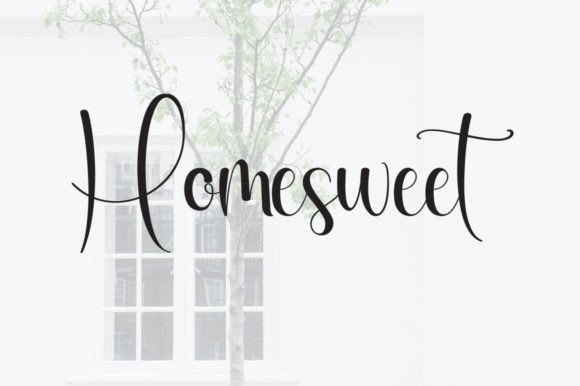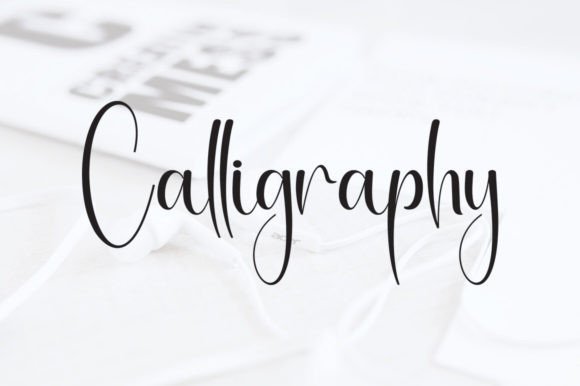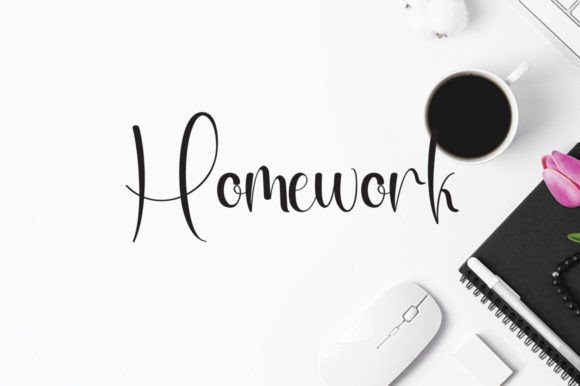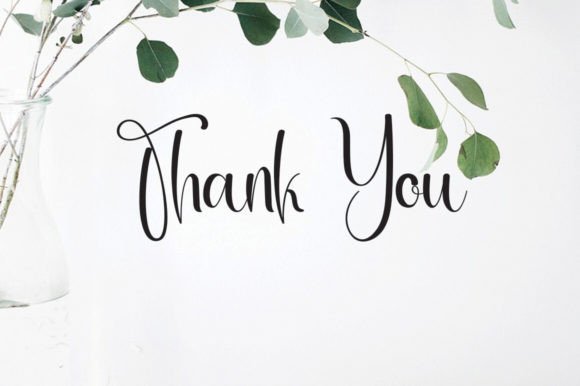
The Sweet Charm of Autography Font: A Designer’s Delight
I’ll never forget the time I was working on a project for a client who wanted a custom wedding invitation design. I had the perfect concept in mind, but I was struggling to find the right font to bring it all together. That’s when I stumbled upon Autography Font, and it was love at first sight! ✨ This delightfully sweet and whimsically cursive handwritten font has since become a staple in my design toolkit, and I’m excited to share its charm with you.
An Honest Review of Autography Font
- ✨ The tender charm and poetic elegance that Autography brings to any design project
- ✅ The subtle yet effective way it infuses an air of joy and romance into every design
- 💫 The versatility of this font, which makes it suitable for a wide range of projects, from wedding invitations to branding and packaging
- 🎨 The beautiful, handwritten feel that adds a touch of personality to any design
While Autography Font is a stunning addition to any design project, there are a few things to keep in mind: ⚠️
- 🤔 Some users may find that the font can be a bit tricky to read in smaller sizes, so it’s best to use it in larger sizes or for display purposes.
- ⚠️ As with any script font, it’s essential to pay attention to kerning and letter spacing to ensure that the text looks elegant and refined.
A Practical Guide to Using Autography Font
The Backstory of Autography Font
Autography Font was designed by a talented type designer who wanted to create a font that would bring a touch of elegance and sophistication to any design project. The designer drew inspiration from classic script fonts and infused them with a modern, playful twist. The result is a font that is both elegant and refined, yet fun and playful.
| Font Name | Autography Font |
| Author | Garcio |
Q: What is Autography Font?
A: Autography Font is a sweet and whimsically cursive handwritten font that exudes a tender charm and poetic elegance.
Q: What can I use Autography Font for?
A: Autography Font is versatile and can be used for a wide range of projects, from wedding invitations to branding and packaging.
Q: Is Autography Font easy to read?
A: Autography Font is a script font, and as such, it can be a bit tricky to read in smaller sizes. It’s best to use it in larger sizes or for display purposes.